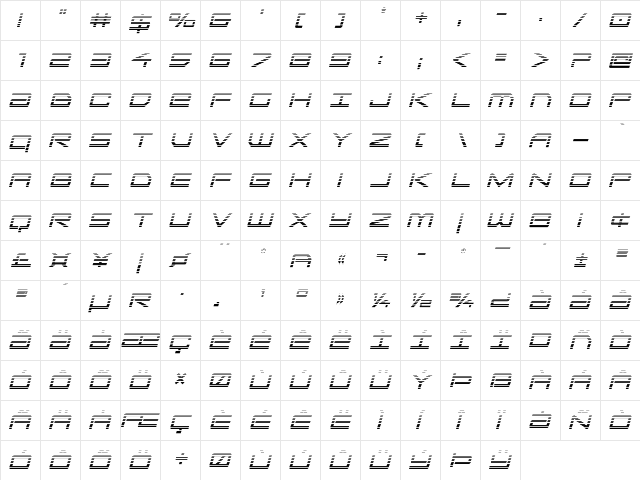
Sky Ridge Gradient Cond Italic Regular Font Preview
Design Context for Sky Ridge Gradient Cond Italic Typeface
Sky Ridge Gradient Cond Italic takes a measured approach to typography — its balanced proportions and neutral character make it a reliable workhorse for both digital and print work. The dynamic lean of this cut emphasises speed and emphasis in any layout. The condensed width makes it efficient for tight spaces without sacrificing legibility.